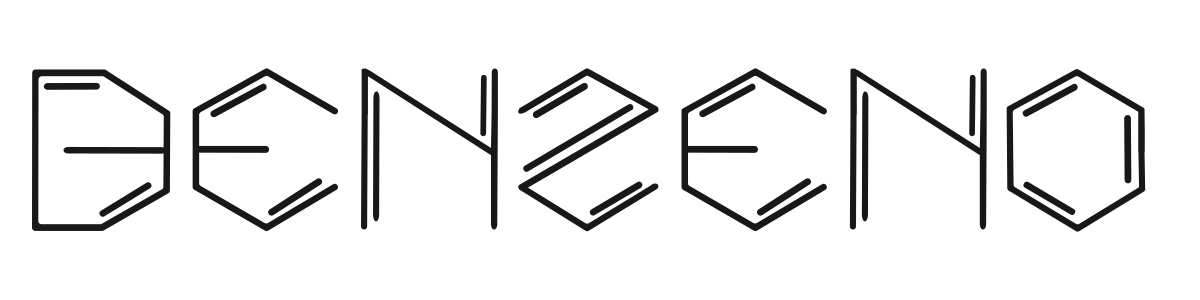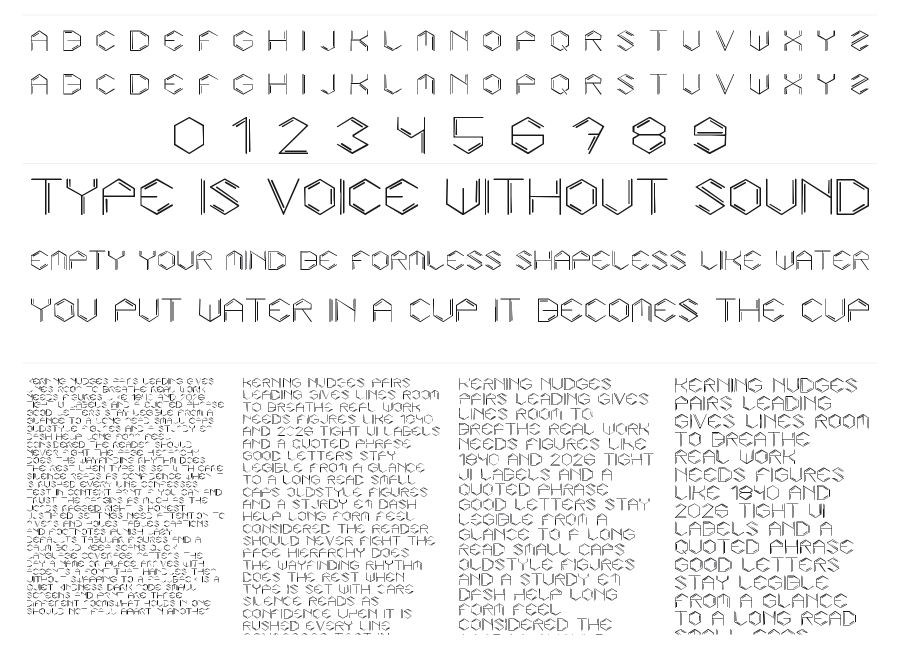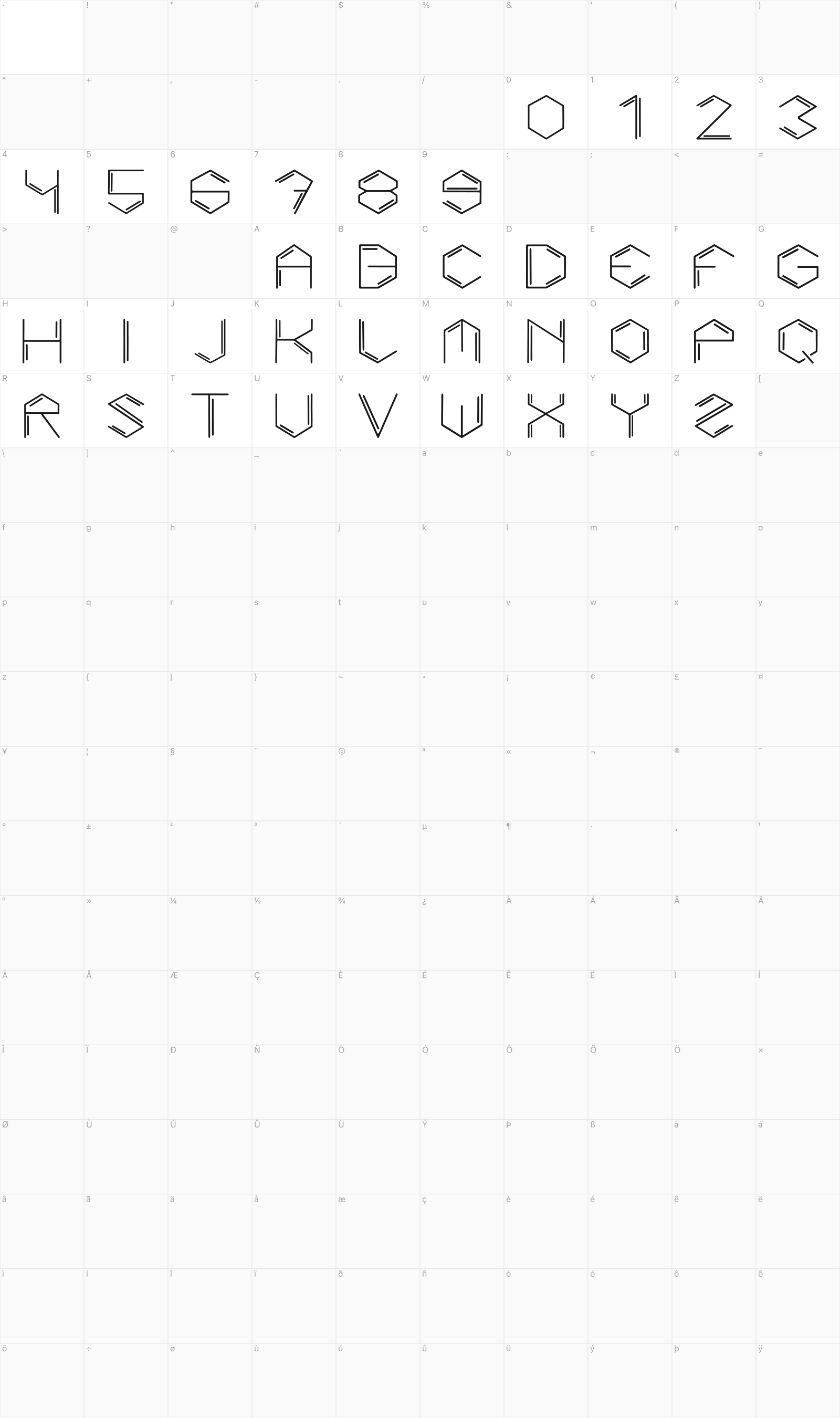
Benzeno
Benzeno is a display font inspired by organic chemistry, where each character is constructed from the hexagonal geometry of benzene rings and structural molecular diagrams. The thin double-line outline style gives it a precise, drafting-like quality that makes the concept feel entirely committed rather than gimmicky. It works best at large sizes where the molecular architecture of each letter can be read clearly.